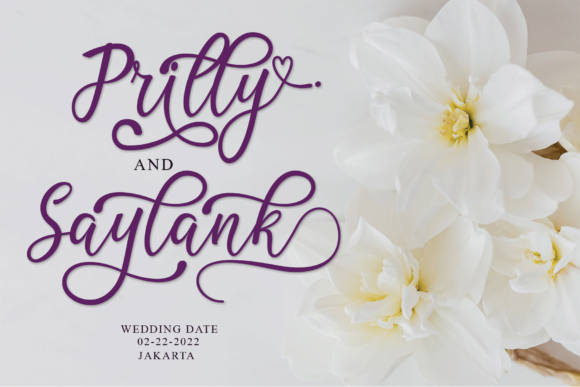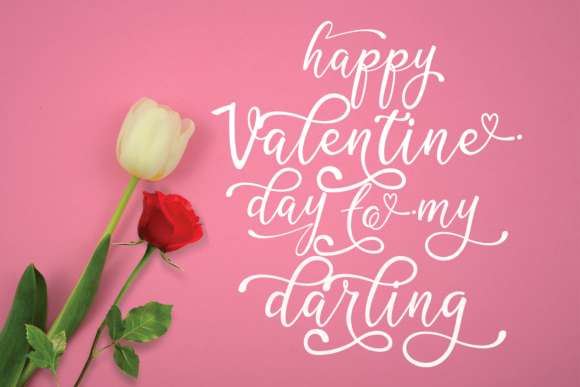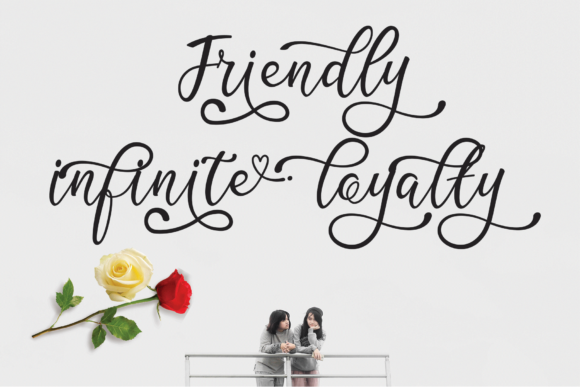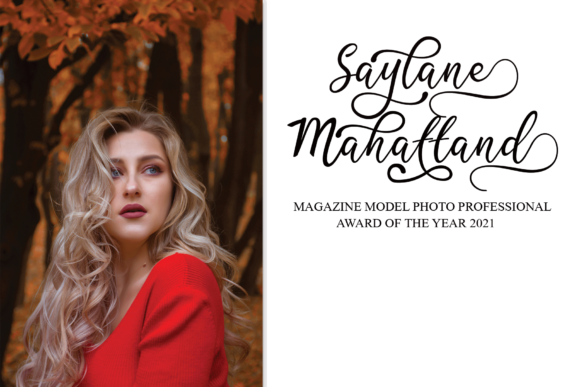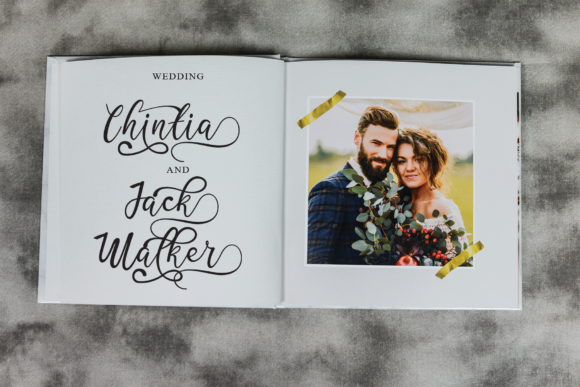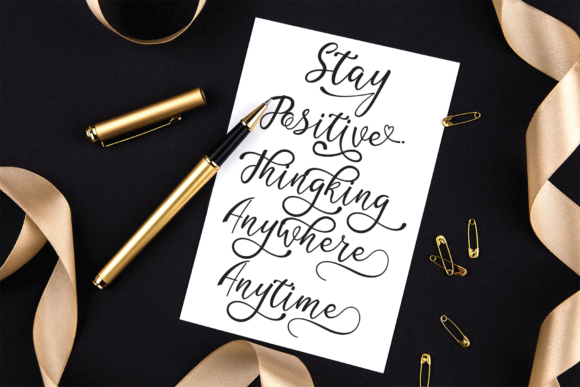
Introduction to Sangback Font Font
Fonts play a crucial role in design, and the Sangback Font font is a typeface that brings both character and versatility to any project. Whether you’re working on a branding project, a website, or a print design, the Sangback Font font offers a unique style that can elevate your work.
Sangback is a lovely, elegant and unique decorative font.
Add this romantic looking font to each of your love letters, wedding invitations or favorite design ideas, and you will be astounded by the outcome This font is PUA encoded, which means you can access all of the glyphs and swashes with ease.
The Sangback Font font is more than just a typeface – it’s a design tool that helps you communicate your message with style and clarity. Its unique character set and versatile design make it suitable for a wide range of applications, from elegant invitations to bold headlines.
With its carefully crafted letterforms and balanced proportions, the Sangback Font font ensures readability and visual appeal across all mediums.
The Sangback Font font stands out with its unique design, exceptional readability, and versatility across various design applications.